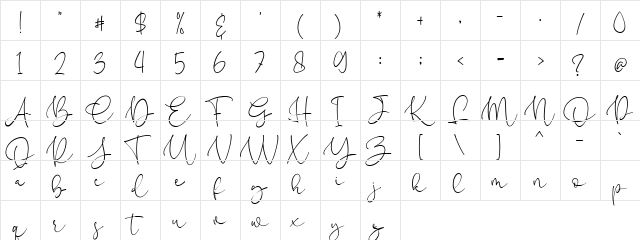
Pretty Yellow Regular
| Foundry | Blankids |
| Designer | Bangkit Tri Setiadi |
Design Context for Pretty Yellow Typeface
Pretty Yellow is a composed and adaptable typeface that performs quietly and consistently across a wide range of design contexts.